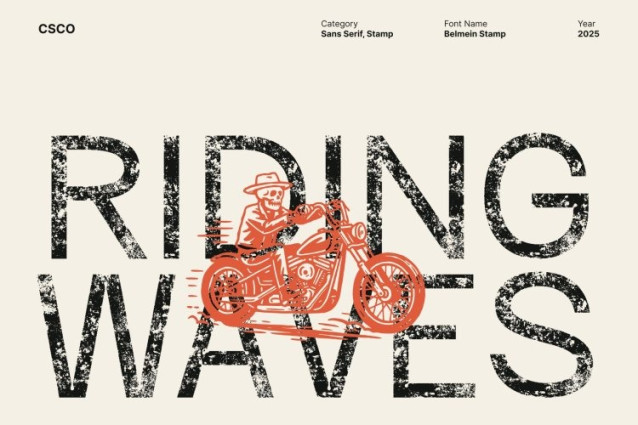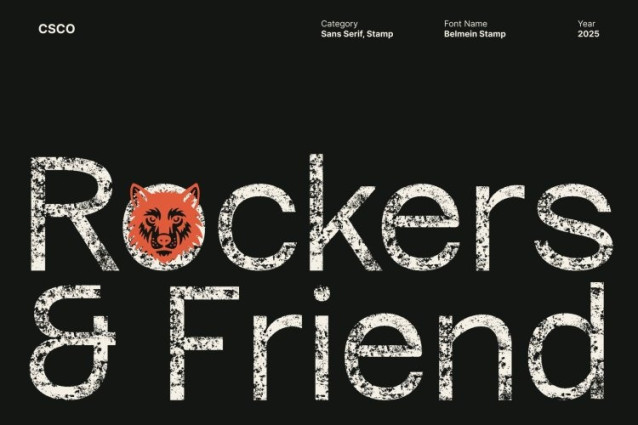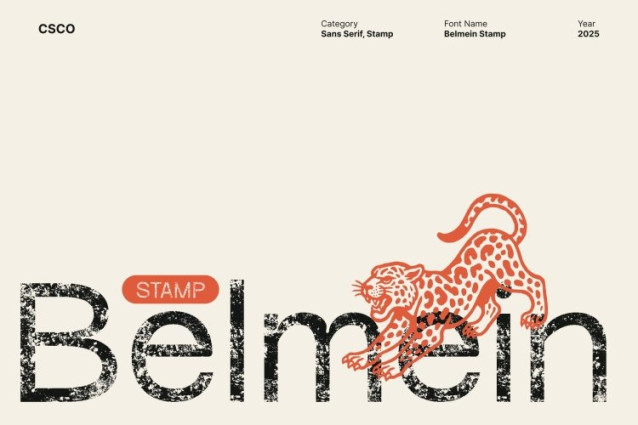
Belmein Stamp Font
Belmein Stamp Font is a modern grotesk sans serif font that merges clean geometry with subtle inktrap details, creating a perfect balance between precision and personality. Its structured design ensures clarity and functionality, while the inktrap features add depth and visual interest, making it ideal for both print and digital use.
Stamp Texture for Vintage Appeal
The added stamp texture introduces a handcrafted, vintage charm that enhances the font’s contemporary form. This textured finish softens its modern precision, giving it an expressive and tactile quality. The interplay of smooth design and rugged texture makes this font distinctive, bringing a sense of authenticity and character to every composition.
Perfect for Editorial and Branding Design
Whether used in editorials, digital design, or vintage-inspired branding, this font delivers a sophisticated yet approachable tone. It performs beautifully in headlines, logos, and packaging, adding a subtle nostalgic feel without sacrificing modern readability.
Where Modern Meets Handmade
This font captures the spirit of modern craftsmanship functional, minimal, and visually captivating. Its fusion of inktrap precision and stamped texture creates a font that feels both engineered and artistic, making it the perfect choice for designers seeking balance between innovation and tradition.